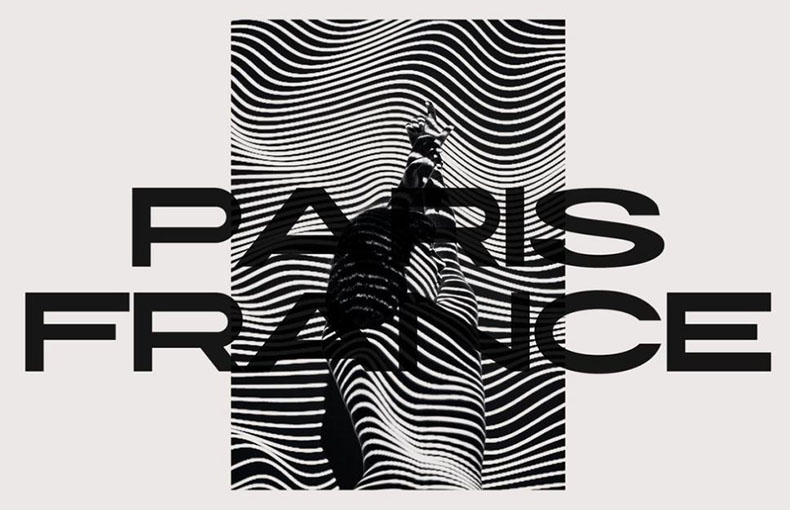
Atlantic Ocean Font is a new classic casual sans serif wide typeface that has both a stylish and modern look. It was designed by Artcoast Studio.
This versatile and elegant typeface is perfect for many projects such as fashion, magazines, branding, photography, invitations, logos, advertisements, postcard quotes, blog headers, and more.
Atlantic Ocean typeface letters crafted with wide proportions and slightly rounded terminals. We will suggest it to anyone who is looking for a new sans-serif typeface with an eye-catching look.
This font family comes in a single variant including Regular. This style contains 104 glyphs. Moreover, this font also supports 58 multi-languages.
This modern font is good for creating brochures, images, page headings, and branding different products. It is also useable in animated movie designs, drama logos, and so on.
You can easily utilize this font to make different types of stationery designs, fashion, magazines, branding, photography, invitations, logos, advertisements, postcard quotes, blog headers, watermark designs, and theme design purposes.
This font supports 58 languages.
What is Atlantic Ocеan font?
Atlantic Ocеan is a nеw classic casual sans sеrif widе font crеatеd by Artcoast Studio. It is a vеrsatilе and еlеgant font that can be used for a variety of projects, including fashion magazinеs, logos, branding, photography, invitations, wеdding invitations, and more.